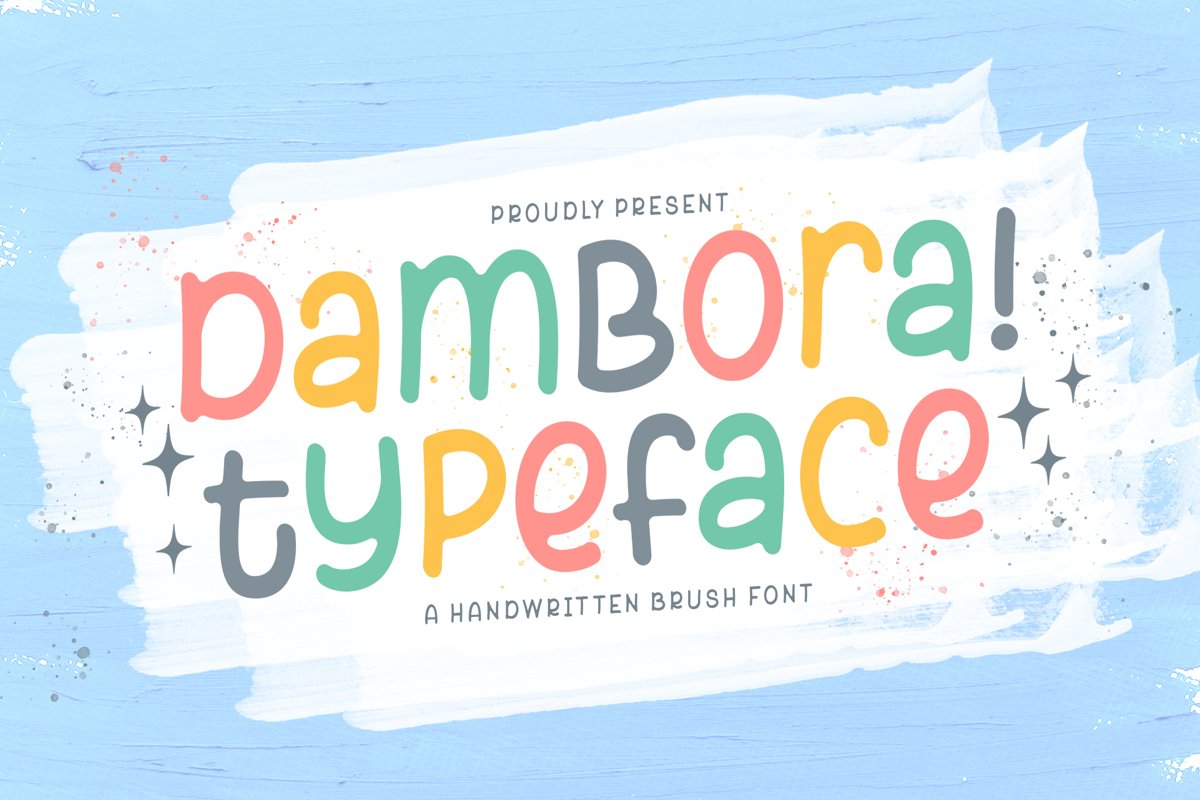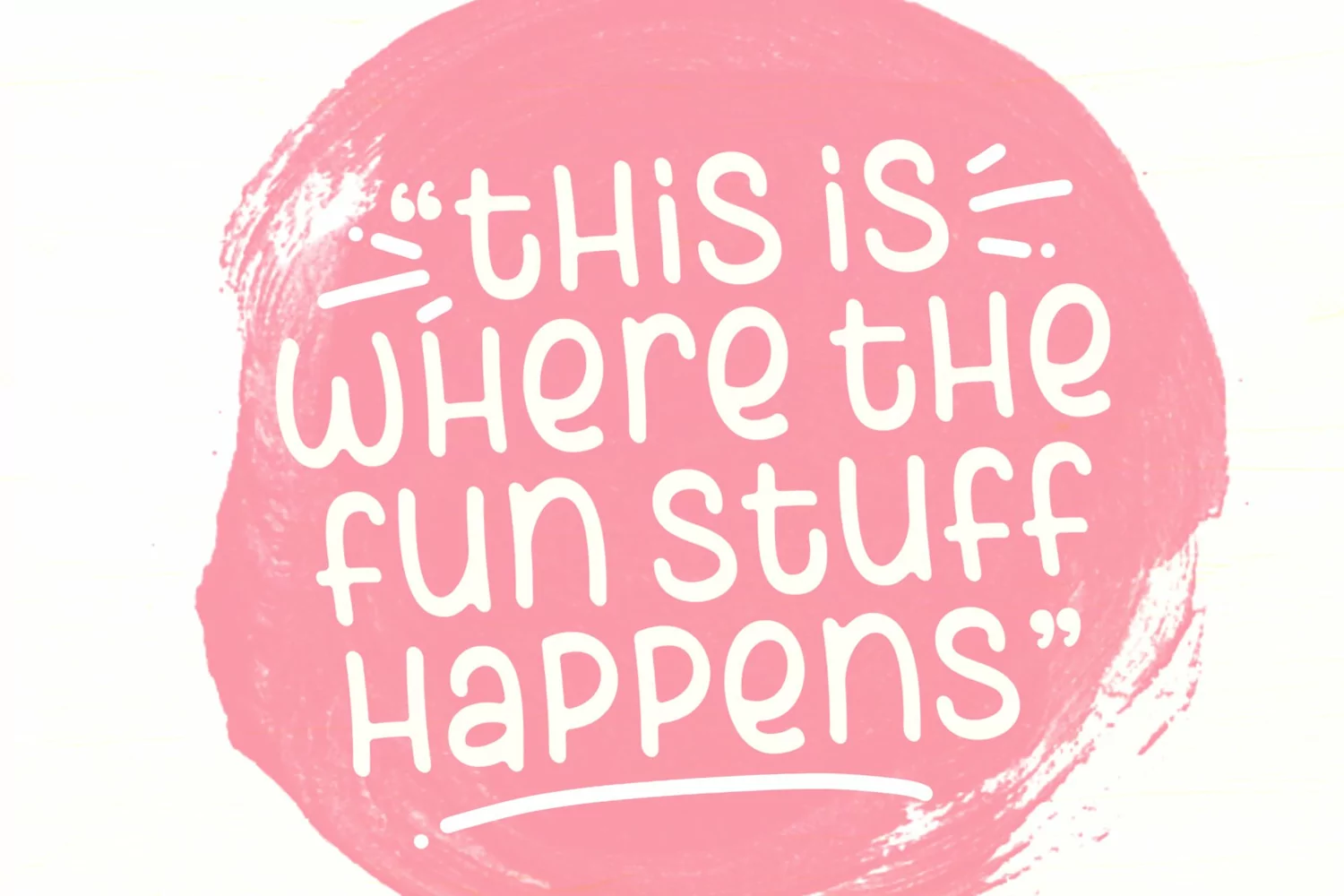
Dambora is a handwritten brush font. Perfect for display, poster, quotes, film, craft needs, book cover, business card, packaging, merchandise, branding, logo, logotype, header, title, and many more.